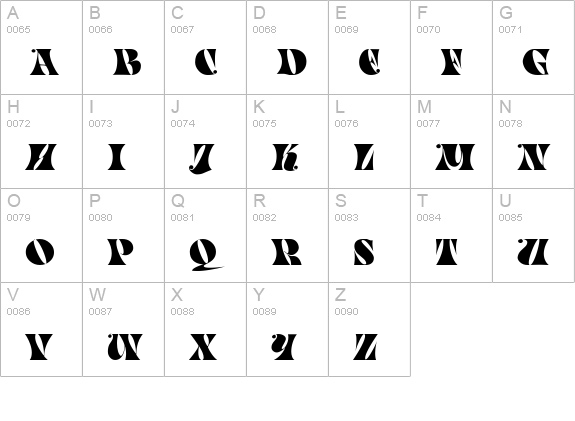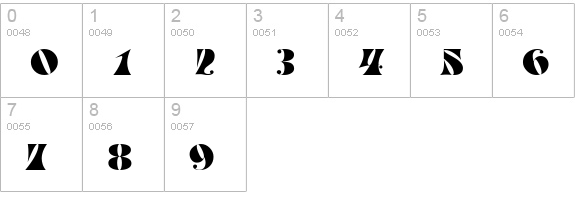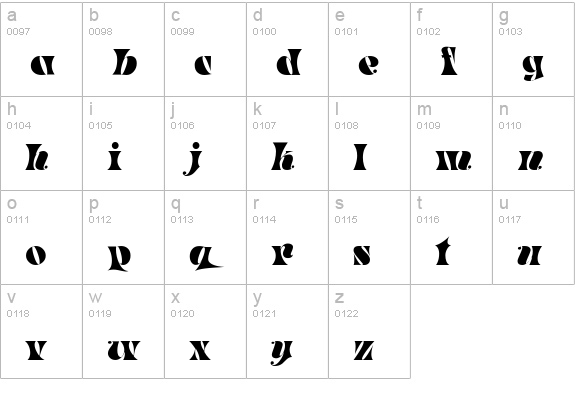
Parade Font Details
Parade font is a stunning and versatile typeface that combines elegance with a touch of playfulness. Its clean lines and smooth curves give it a modern and sophisticated look, making it perfect for a wide range of design projects. This font is available in a variety of weights and styles, allowing you to create eye-catching headlines, stylish logos, and beautiful typography. Whether you're designing a magazine layout, a website, or a brand identity, Parade font is sure to make a lasting impression. But what truly sets Parade font apart is that it is freely available to download at FontsMarket.com. Yes, you read that right – this incredible typeface can be yours at no cost. Now you can add a touch of elegance to your designs without having to break the bank. With its generous character set and multilingual support, Parade font is suitable for projects in any language. Its legibility and readability make it easy to use for both print and digital design, ensuring that your message comes across loud and clear. So why wait? Head over to FontsMarket.com and download Parade font today. Unleash your creativity and elevate your designs with this amazing font that combines style, elegance, and the best part – it's free!